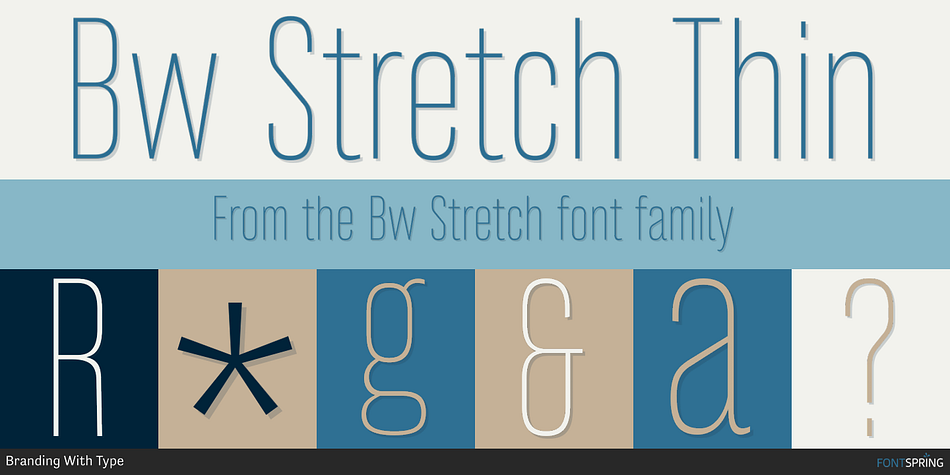
Bw Stretch is a sans serif font family. This typeface has eight styles and was published by Branding With Type.
Bw Stretch Thin
Bw Stretch is a compressed grotesque Sans serif suited for display but also body text purposes.
Inspired by early wood-block screen-printing sans serif designs, it spreads across eight weights from Thin to Heavy, covering all European Latin languages.
It includes extended features like small/petite caps, fractions, case sensitive forms, discretionary ligatures and disruptive titling alternates.